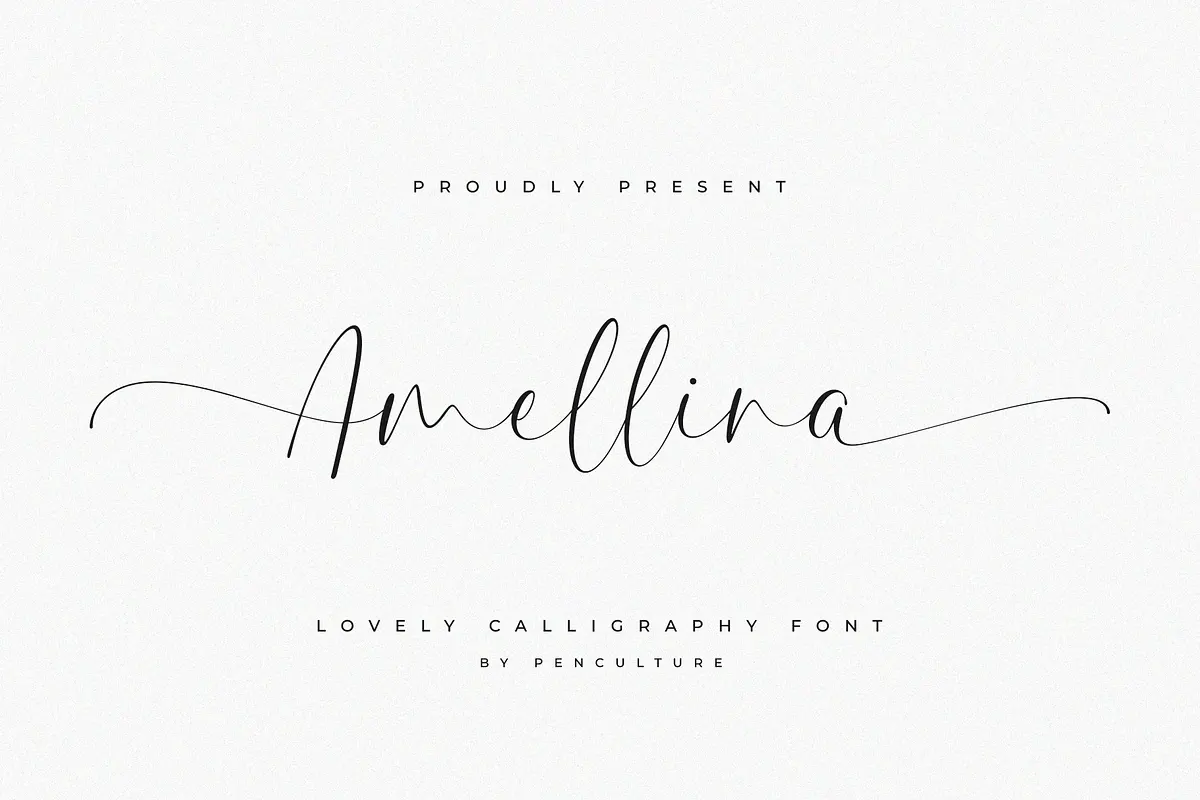
Amellina - A lovely Calligraphy Font Free Download
Amellina - A Lovely Calligraphy Font Free Download is a graceful and romantic script typeface, perfect for wedding invitations, branding, greeting cards, and elegant social media content. Its flowing strokes and handcrafted charm bring a warm, personal touch to any design. Please note that you must purchase this font for commercial use, but it is available as a free download for testing purposes. Add a sense of beauty and sophistication to your projects with Amellina - A Lovely Calligraphy Font Free Download, and let your typography speak with elegance and emotion.